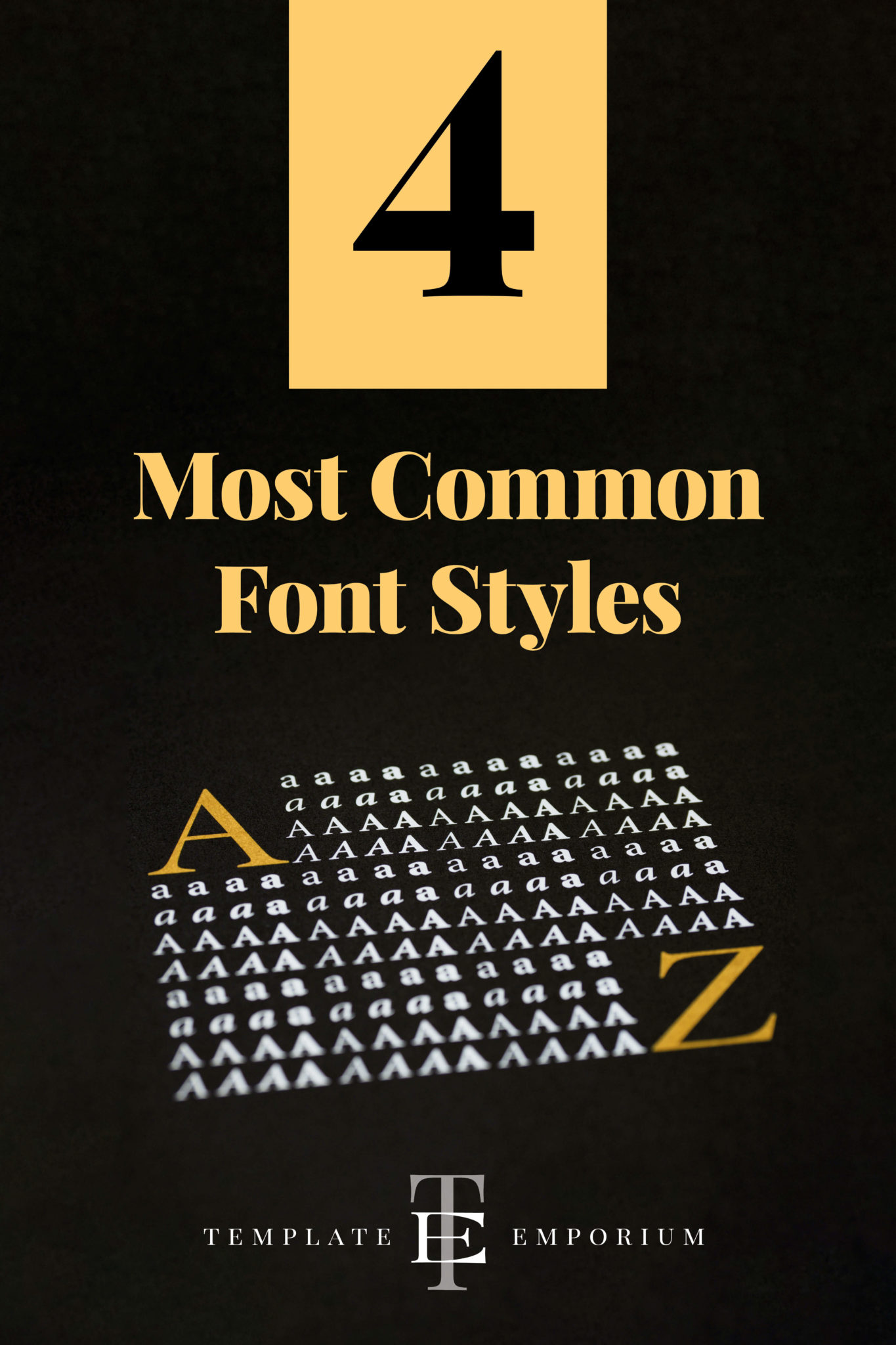
What Is The Most Common Font For Books . discover the x perfect fonts to make your book look like a bestseller. basically, the best fonts for books are simple and classic. that said, the most common book fonts used are as follows: finding the right font is the most important part of book design. Serif fonts are a popular choice for print books that are heavy on text and aim to create a formal, coherent, and lucid impression. Some of the widely used serifs are: it takes more than a good plotline and strong characters to make your book stand out. let’s begin by understanding the popular fonts for print books. What font are most books printed in? These fonts are suitable for books of any genre:. It not only plays a key role in improving.
it takes more than a good plotline and strong characters to make your book stand out. Some of the widely used serifs are: finding the right font is the most important part of book design. let’s begin by understanding the popular fonts for print books. It not only plays a key role in improving. Serif fonts are a popular choice for print books that are heavy on text and aim to create a formal, coherent, and lucid impression. that said, the most common book fonts used are as follows: What font are most books printed in? discover the x perfect fonts to make your book look like a bestseller. basically, the best fonts for books are simple and classic.
What Is The Most Common Font For Books discover the x perfect fonts to make your book look like a bestseller. These fonts are suitable for books of any genre:. finding the right font is the most important part of book design. that said, the most common book fonts used are as follows: let’s begin by understanding the popular fonts for print books. Serif fonts are a popular choice for print books that are heavy on text and aim to create a formal, coherent, and lucid impression. discover the x perfect fonts to make your book look like a bestseller. What font are most books printed in? It not only plays a key role in improving. basically, the best fonts for books are simple and classic. it takes more than a good plotline and strong characters to make your book stand out. Some of the widely used serifs are:
Incredible Most Common Fonts For Books In Graphic Design Typography What Is The Most Common Font For Books What font are most books printed in? that said, the most common book fonts used are as follows: These fonts are suitable for books of any genre:. finding the right font is the most important part of book design. basically, the best fonts for books are simple and classic. discover the x perfect fonts to make. What Is The Most Common Font For Books.
15+ Best Fonts for Books Free and Premium Fonts—MasterBundles What Is The Most Common Font For Books basically, the best fonts for books are simple and classic. let’s begin by understanding the popular fonts for print books. It not only plays a key role in improving. it takes more than a good plotline and strong characters to make your book stand out. Serif fonts are a popular choice for print books that are heavy. What Is The Most Common Font For Books.
The Four Most Common Font Styles What Is The Most Common Font For Books These fonts are suitable for books of any genre:. finding the right font is the most important part of book design. What font are most books printed in? It not only plays a key role in improving. Serif fonts are a popular choice for print books that are heavy on text and aim to create a formal, coherent, and. What Is The Most Common Font For Books.
The Book Fonts Guide Everything You Need to Know About Book Typography What Is The Most Common Font For Books let’s begin by understanding the popular fonts for print books. Some of the widely used serifs are: it takes more than a good plotline and strong characters to make your book stand out. basically, the best fonts for books are simple and classic. These fonts are suitable for books of any genre:. Serif fonts are a popular. What Is The Most Common Font For Books.
15+ Best Fonts for Books Free and Premium Fonts—MasterBundles What Is The Most Common Font For Books Some of the widely used serifs are: finding the right font is the most important part of book design. discover the x perfect fonts to make your book look like a bestseller. Serif fonts are a popular choice for print books that are heavy on text and aim to create a formal, coherent, and lucid impression. These fonts. What Is The Most Common Font For Books.
300+ FoolProof Fonts to use for your Book Cover Design (an epic list What Is The Most Common Font For Books basically, the best fonts for books are simple and classic. let’s begin by understanding the popular fonts for print books. discover the x perfect fonts to make your book look like a bestseller. finding the right font is the most important part of book design. Serif fonts are a popular choice for print books that are. What Is The Most Common Font For Books.
Incredible Most Common Fonts For Books In Graphic Design Typography What Is The Most Common Font For Books It not only plays a key role in improving. that said, the most common book fonts used are as follows: These fonts are suitable for books of any genre:. Some of the widely used serifs are: What font are most books printed in? finding the right font is the most important part of book design. discover the. What Is The Most Common Font For Books.
10 Best Fonts to Make Your Book Look Like a Bestseller SWATT Books What Is The Most Common Font For Books discover the x perfect fonts to make your book look like a bestseller. These fonts are suitable for books of any genre:. let’s begin by understanding the popular fonts for print books. Some of the widely used serifs are: basically, the best fonts for books are simple and classic. It not only plays a key role in. What Is The Most Common Font For Books.
How To Choose A Font For Your Book Design vrogue.co What Is The Most Common Font For Books discover the x perfect fonts to make your book look like a bestseller. finding the right font is the most important part of book design. These fonts are suitable for books of any genre:. let’s begin by understanding the popular fonts for print books. it takes more than a good plotline and strong characters to make. What Is The Most Common Font For Books.